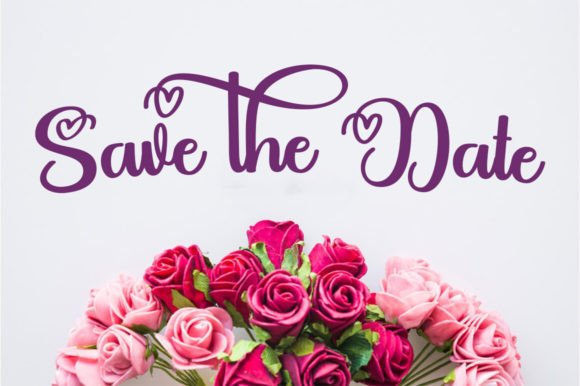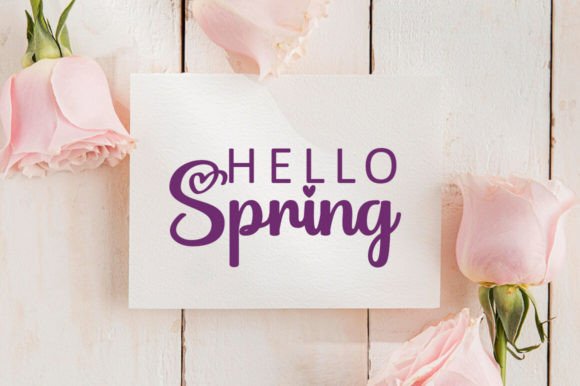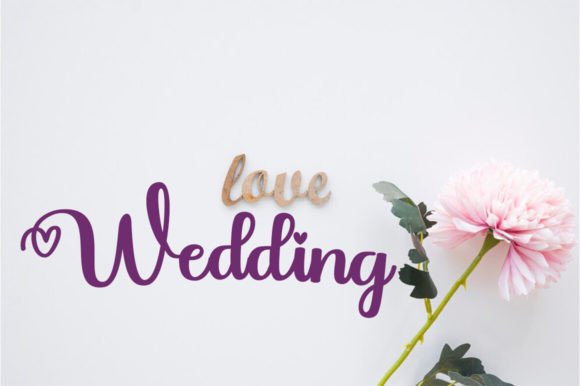
Introduction to Migatha Font
As a designer, there’s nothing quite like the thrill of bringing a creative project to life. You’ve spent hours brainstorming, sketching, and refining your idea, and finally, it’s time to add the finishing touches. But have you ever found yourself struggling to find the perfect font to match your vision? That’s where Migatha Font comes in – a sophisticated calligraphy-inspired script typeface that’s sure to elevate your design to the next level.
With its modern aesthetic and flawless shape, Migatha Font is the perfect design resource for any creative project. Whether you’re working on a high-quality brochure, a website, or a social media campaign, this versatile typeface is sure to impress. And the best part? It’s free to download, making it an accessible and valuable resource for designers of all levels.
- Includes a range of unique characters, including special symbols and accents, to enhance the overall aesthetic.
- Designed with a clean and modern style, making it perfect for modern creative projects.
Honest Review: Migatha Font
I recently stumbled upon the Migatha Font, and I’m excited to share my thoughts on this design resource. As a designer, I’m always on the lookout for high-quality fonts to elevate my creative projects.
- The Migatha Font offers a unique and creative style that can add a touch of sophistication to any design project.
- The Migatha Font may not be suitable for all design projects, particularly those requiring a more traditional or formal look.
- The font’s creative style may not appeal to all designers, and some may find it too unconventional.
Overall, the Migatha Font is a great addition to any design resource library. While it may have some limitations, its unique style and free download option make it a worthwhile asset for designers looking to add some creativity to their projects.
Migatha Font is ideal for various design projects, including: social media graphics, logo design, typography, and presentations. It’s also great for creating free download resources, such as templates and graphics, with a transparent background.
Great Vibes Font is similar to Migatha Font in its flowing and cursive nature, but it has a more refined and sophisticated look. It’s a great alternative for designers who want a high-quality font for their design projects.